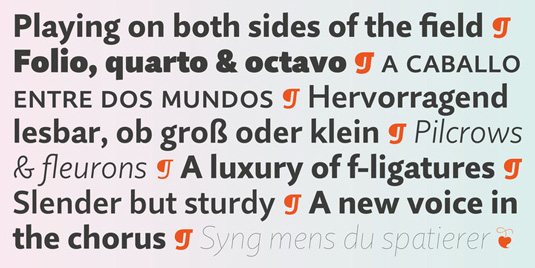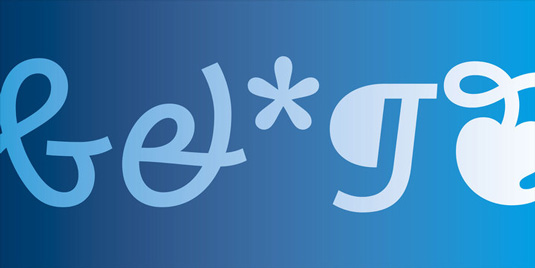
Font of the day: Quire Sans
Quire Sans from Monotype
Today's font of choice, Quire Sans, was created by Jim Ford of the Monotype Studio. Ford looked to orchestrate the interplay between the rich typographic details of historic book publishing typefaces with the modern styling of designs for electronic media.
"Quire Sans is friendly or serious, or understated, sturdy and graceful, depending on the context," Ford comments. "I made a conscious effort throughout to maintain a 'friendliness' in every shape, ensuring a 'personal signature' and character in every letter, bridging the gap between traditional printing and publishing faces, and those typefaces designed for on-screen viewing."